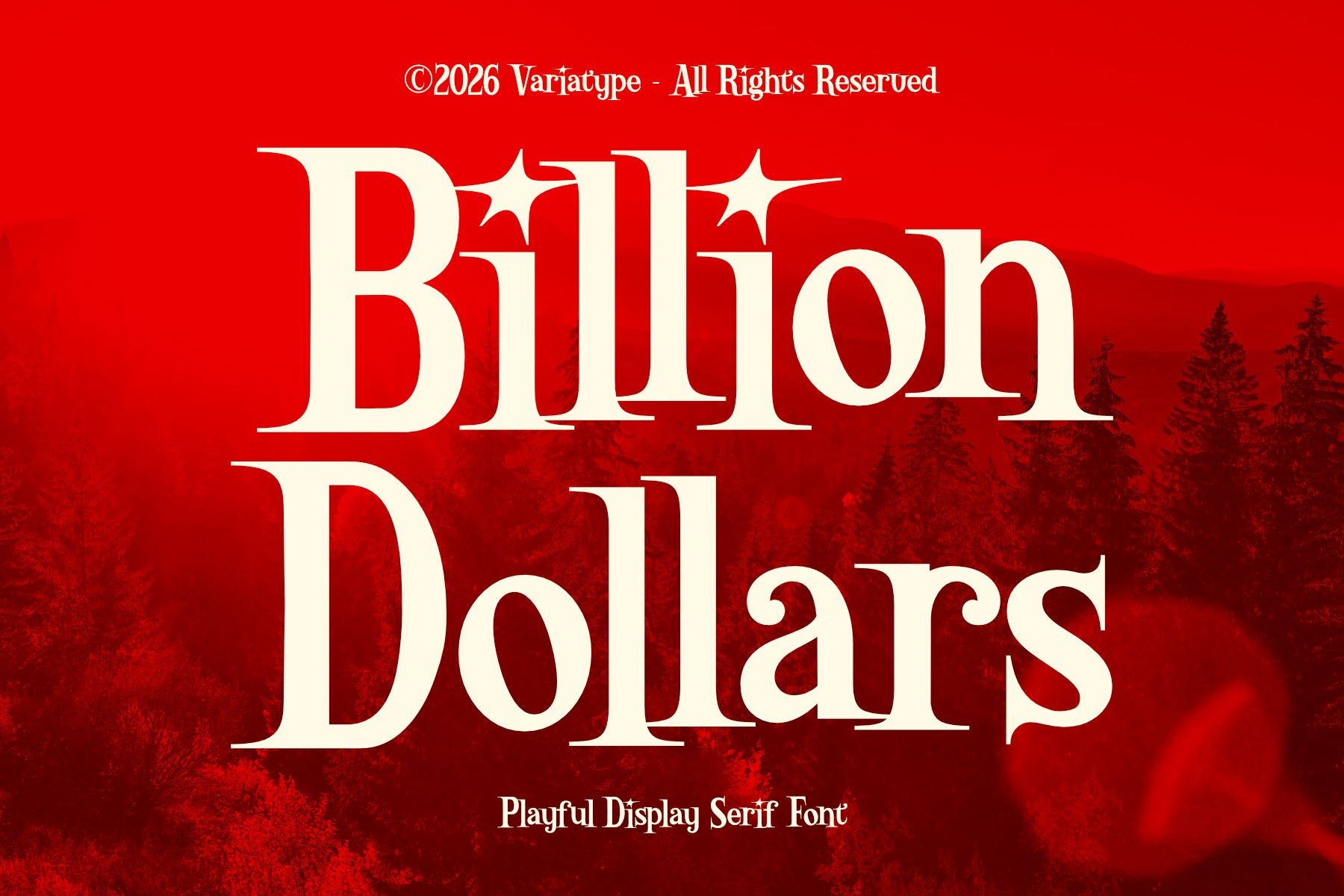
Billion Dollars – Playful Display Serif Font
Billion Dollars – Playful Display Serif Font is a premium-quality font developed to enhance your work with a polished, modern, and visually elevated look. Billion Dollars is a playful display serif designed for brands that want to stand out with confidence, personality, and memorable visual impact. Combining classic serif elegance with distinctive decorative details, this typeface brings a fresh and charismatic voice to logos, packaging, advertising campaigns, editorial headlines, and modern branding projects. Whether you’re building a consumer brand, launching a creative product, or crafting marketing materials that need instant attention, Billion Dollars helps transform ordinary words into recognizable brand assets, creating typography that feels bold, approachable, and hard to ignore.